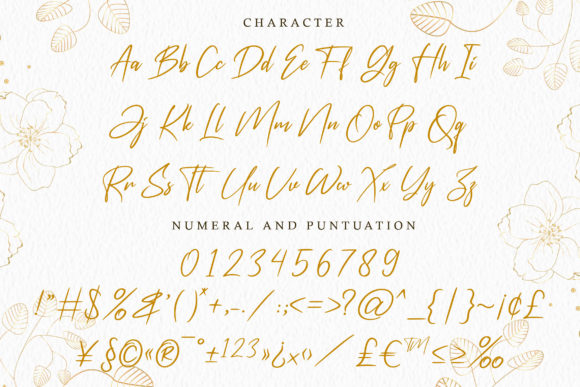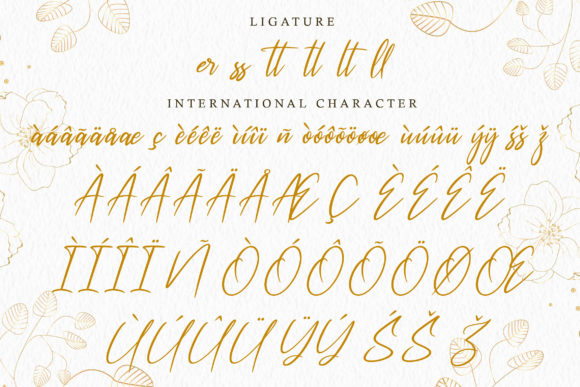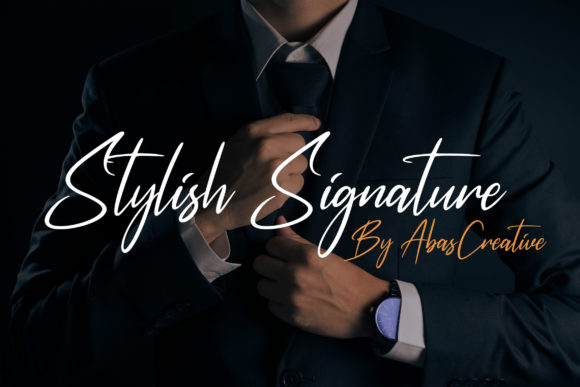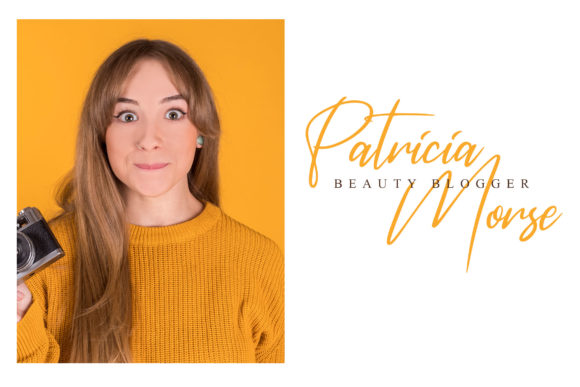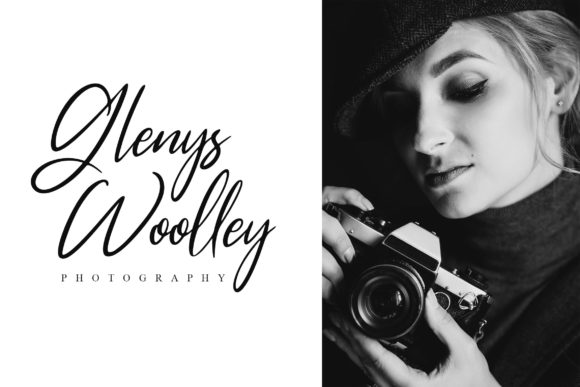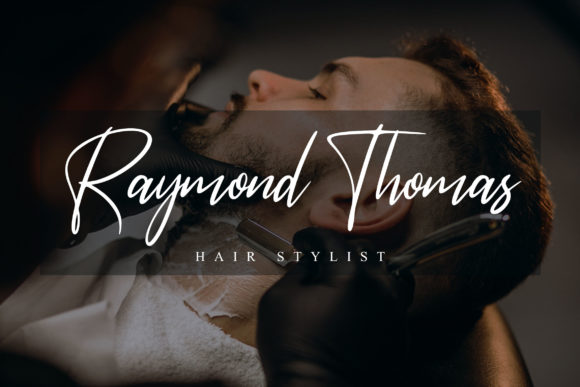
Introduction to Rossatelly Font
Have you ever stared at a blank page, struggling to find the perfect words to bring your creative project to life? It’s a familiar feeling for many designers, but what if you had the right tool to unlock your imagination? The Rossatelly Font is here to help, offering a unique blend of classic calligraphy and modern flair that’s sure to elevate your designs.
As a valuable resource for designers, the Rossatelly Font is a high-quality, free download that can be used in a variety of creative contexts. Its transparent background makes it easy to layer and manipulate, giving you the flexibility to achieve the perfect look. Whether you’re working on a logo, brochure, or social media graphic, the Rossatelly Font is sure to add a touch of sophistication and elegance.
Key Features of Rossatelly Font
- Designed to be versatile and suitable for various design applications
- Unique characteristics include elegant lines and subtle texture
Honest Review: Rossatelly Font
As a designer, I’m always on the lookout for high-quality design resources to elevate my creative projects. Recently, I came across the Rossatelly Font, which promises to deliver a unique and stylish look. Let’s dive in and see if it lives up to the hype.
- High-quality design: The Rossatelly Font boasts a crisp, clean design that’s perfect for modern creative projects.
- Transparent background: The font’s transparent background makes it easy to use on a variety of backgrounds and designs.
- Limited character set: The Rossatelly Font has a limited character set, which may not be suitable for projects that require a wide range of characters.
- Not suitable for small text: The font’s design makes it difficult to read in small text sizes, so it’s best used for headings and titles.
Overall, I’m impressed with the Rossatelly Font’s design and versatility. While it has some limitations, it’s a great addition to any designer’s toolkit. If you’re looking for a high-quality font to elevate your creative projects, the Rossatelly Font is definitely worth considering.
Tips for Getting the Most Out of Rossatelly Font
For best results, use the Rossatelly Font in combination with other high-quality design elements. Experiment with different font sizes and colors to create a unique and eye-catching design. You can also use the font’s transparent background to create layered designs and effects.
The Rossatelly Font is perfect for a variety of design projects, including logos, business cards, brochures, and presentations. Its modern design and transparent background make it easy to use in a variety of creative contexts.
Q: Does Rossatelly Font have a transparent background?
Yes, Rossatelly Font has a transparent background, making it ideal for designs that require a clear and seamless integration with other design elements. The transparent background also allows you to easily customize the font’s appearance and style to suit your design needs.